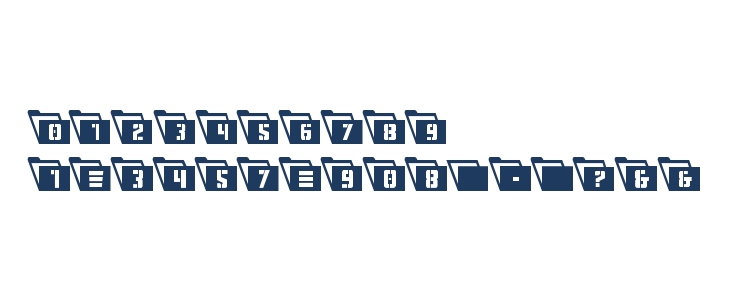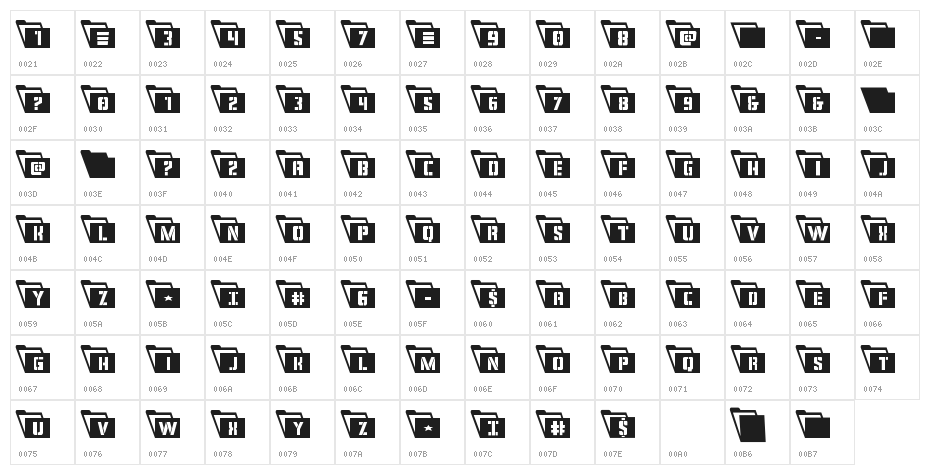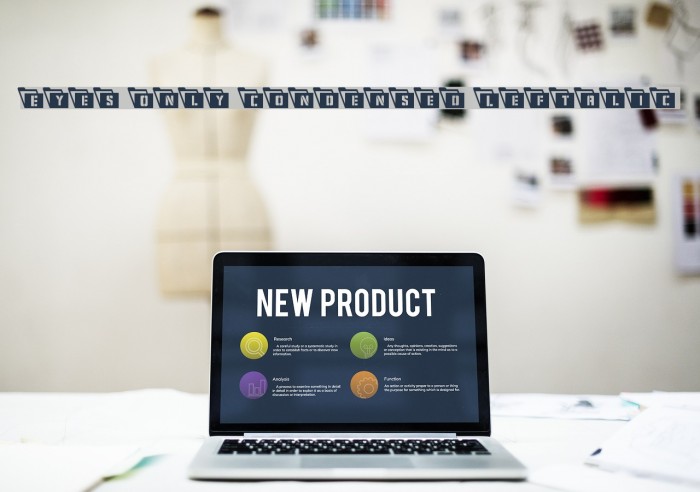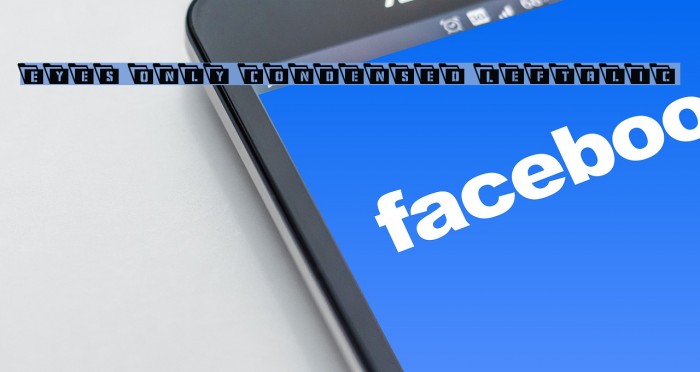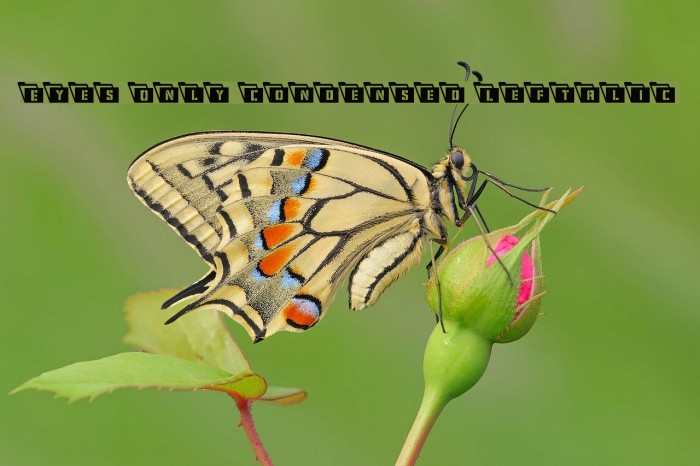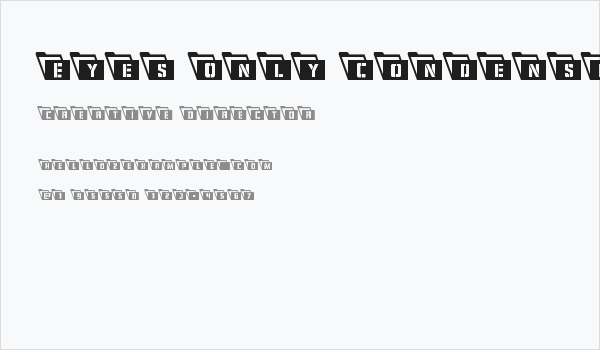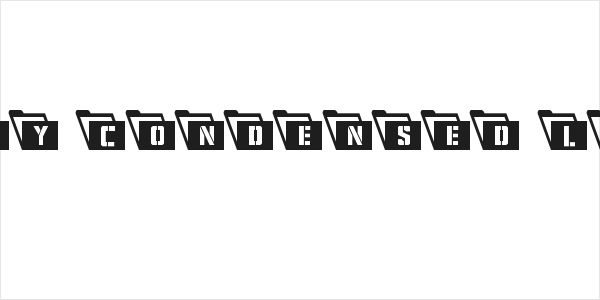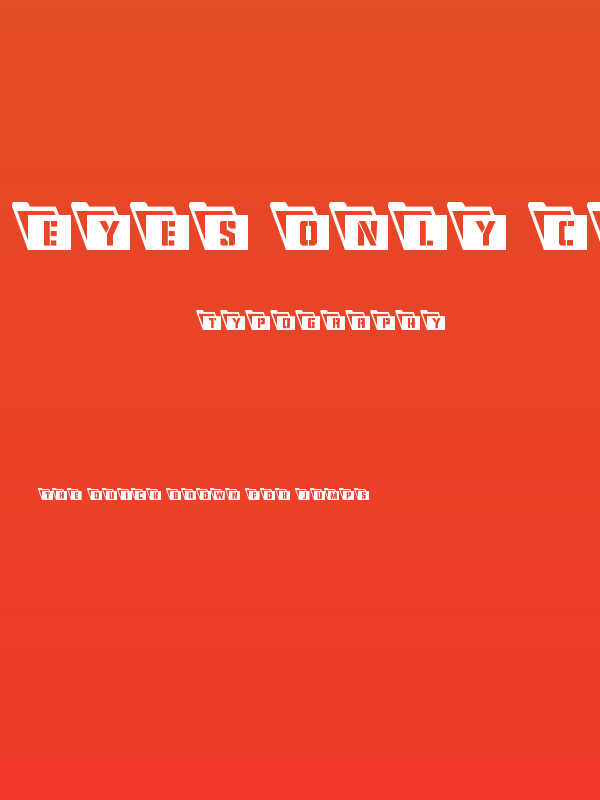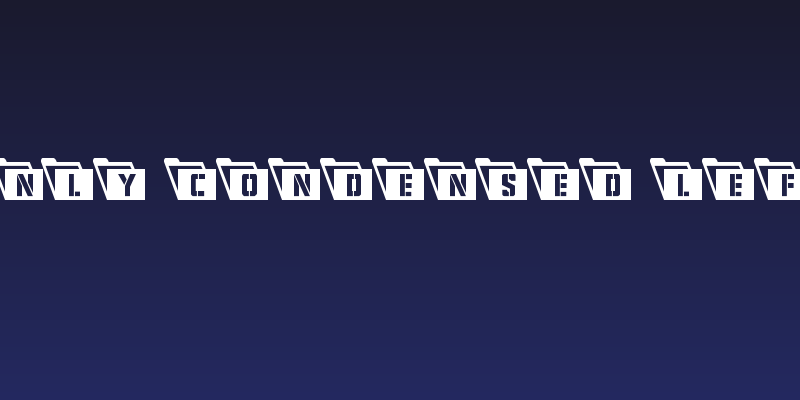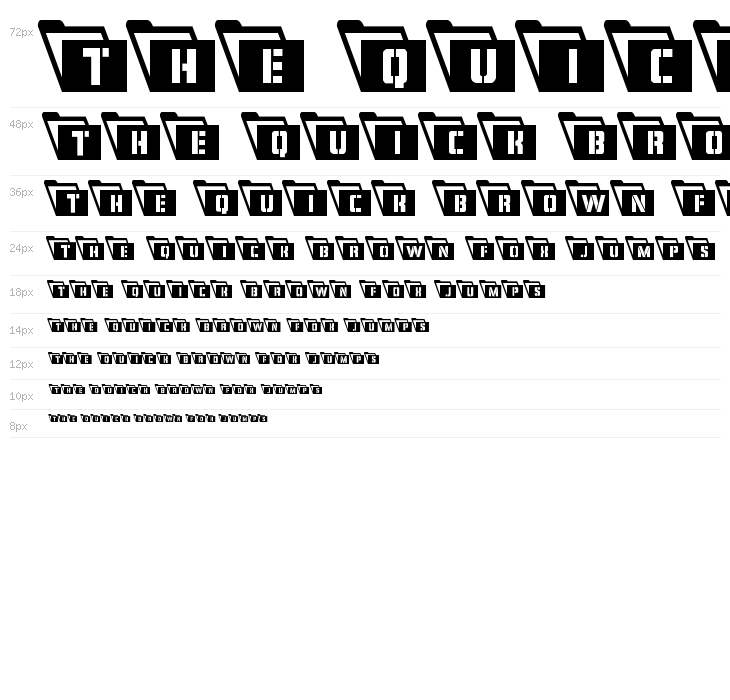
Eyes Only Condensed Leftalic Font
Eyes Only Condensed Leftalic Description
This font features a unique, bold design with a condensed and italicized style. Each character is enclosed within a folder-like shape, giving it a distinctive and modern appearance. The uppercase and lowercase letters maintain a consistent style, with sharp angles and a strong presence. The numbers and special characters follow the same design principle, ensuring uniformity across all glyphs. This font's boldness and unique structure make it stand out, ideal for creative and eye-catching designs.